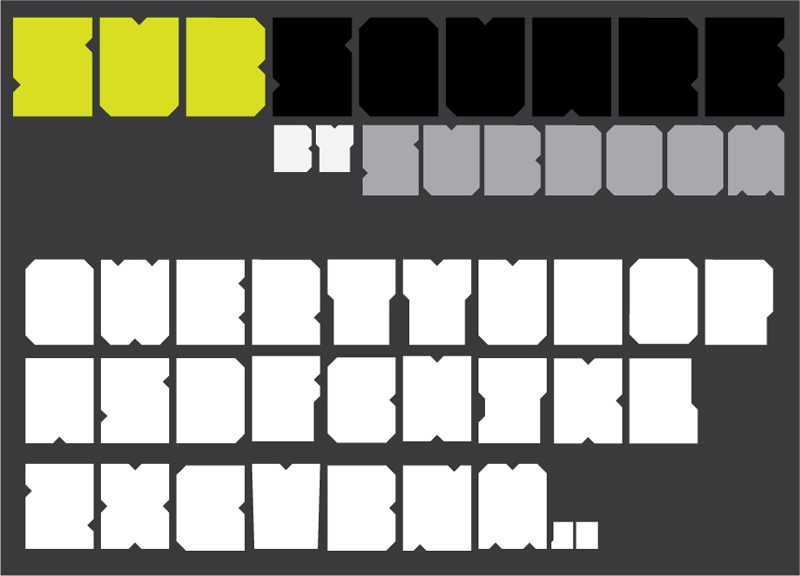
Font name: | SubSquare |
Author: | Vinicius Acquesta |
Note by Vinicius Acquesta | |
Heey! Good start for this is my first source created, and yes! her work has even seemed to think is very simple! is very fun to create a source that tests their knowledge of several. All this was set up starting at square one, thought it was when watching sponge Bob! haha, good use of it is free! Mac/Pc Illustrator and FontLab ( the next will be better! hehe ) ( >> comments and critique will be welcome << ) subdoom.deviantart.com |